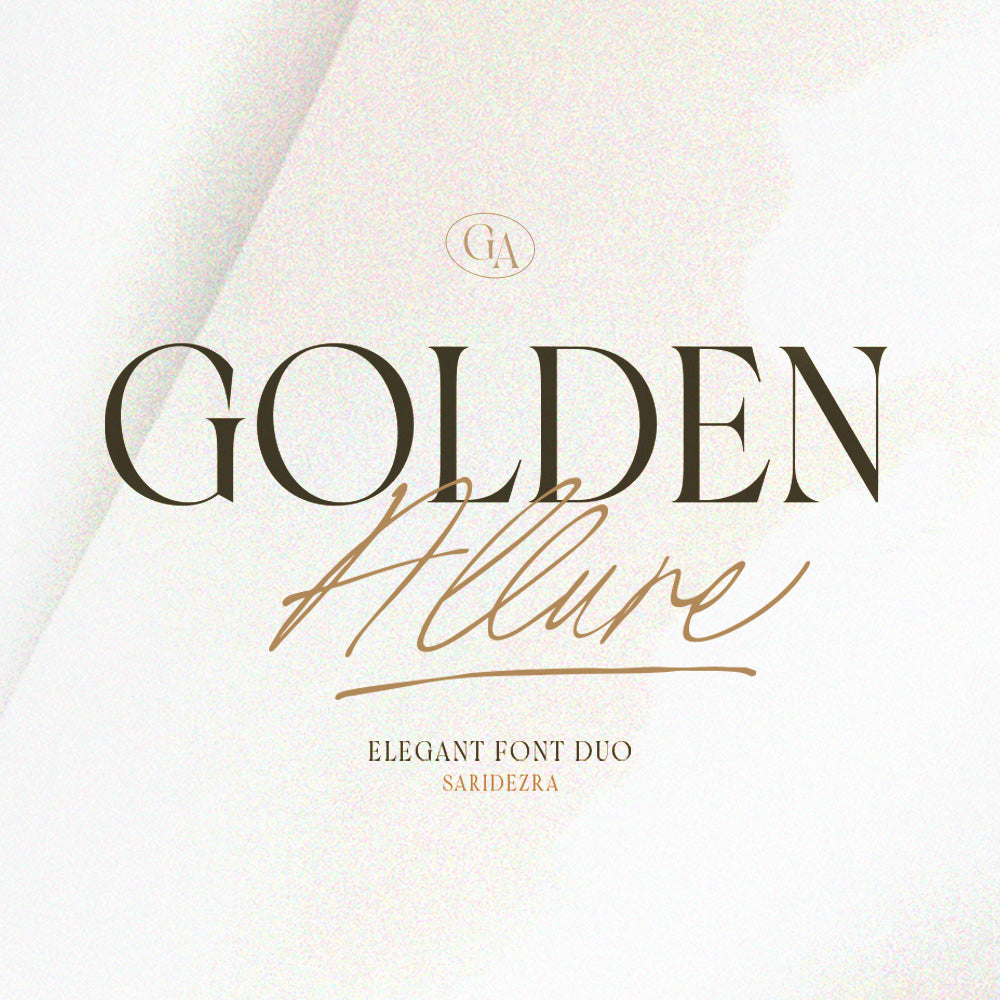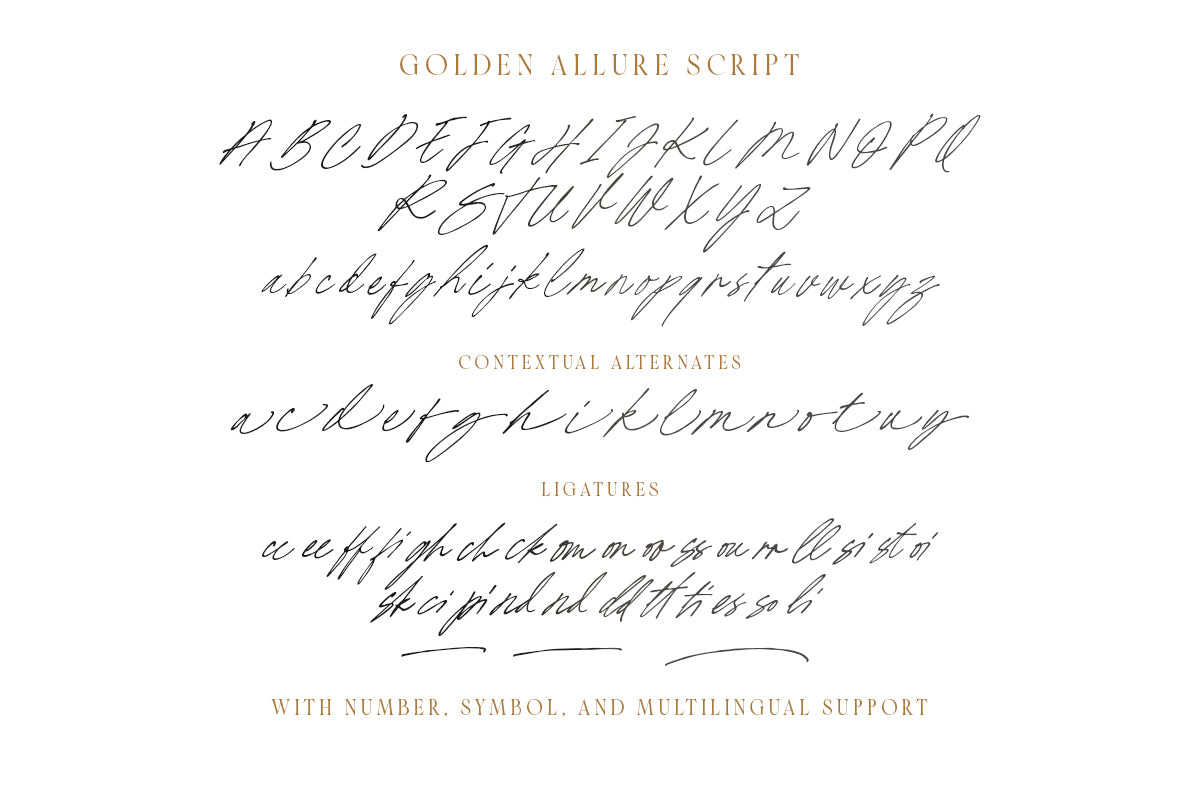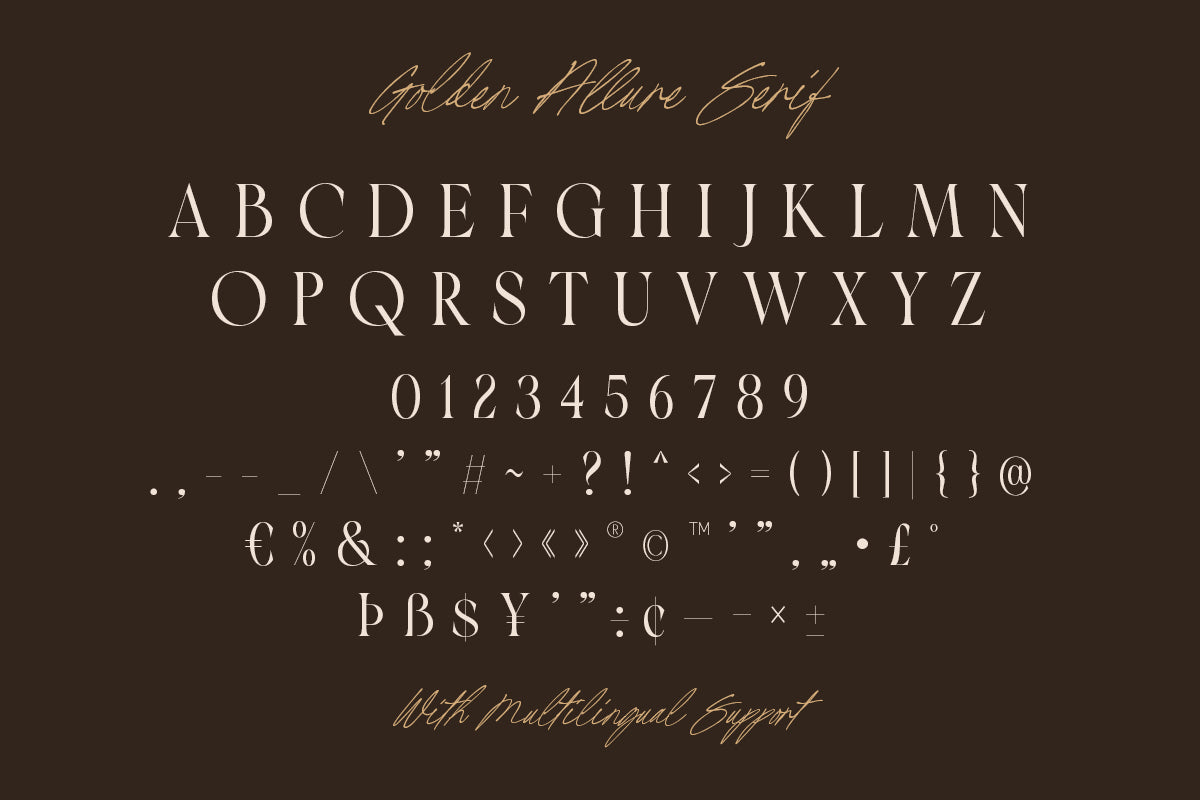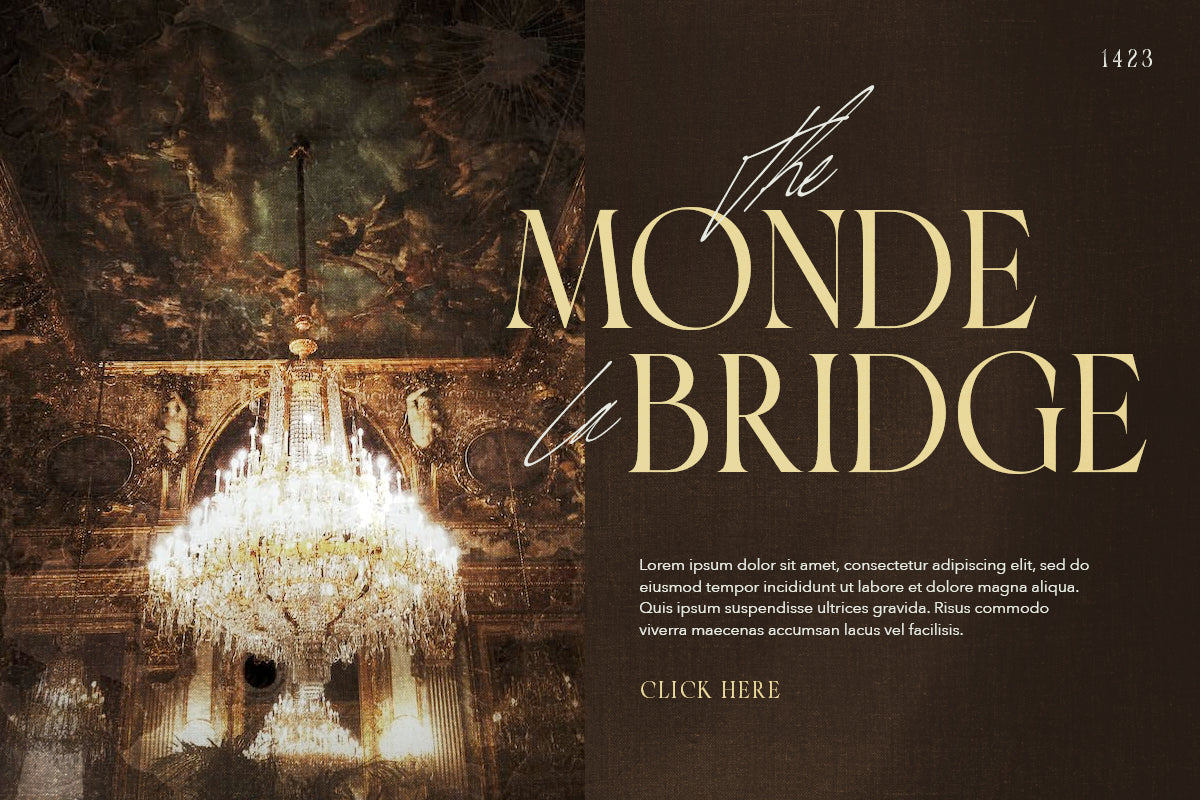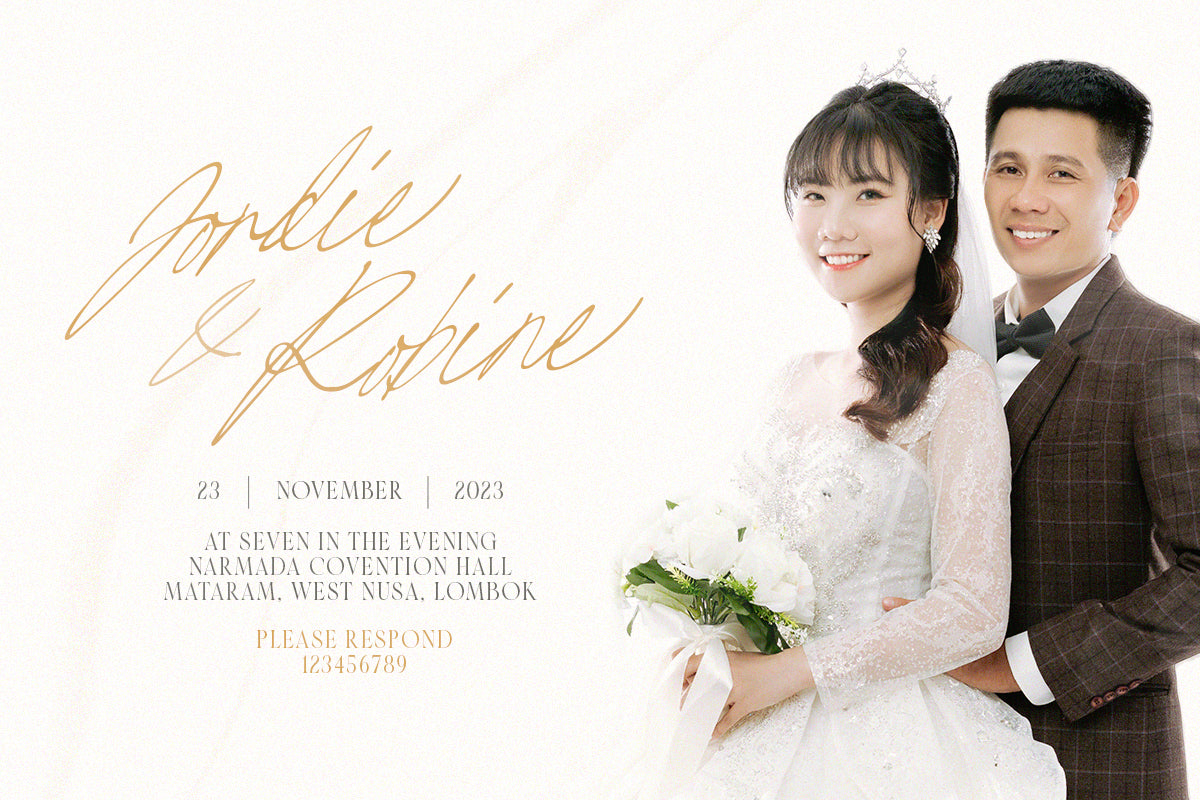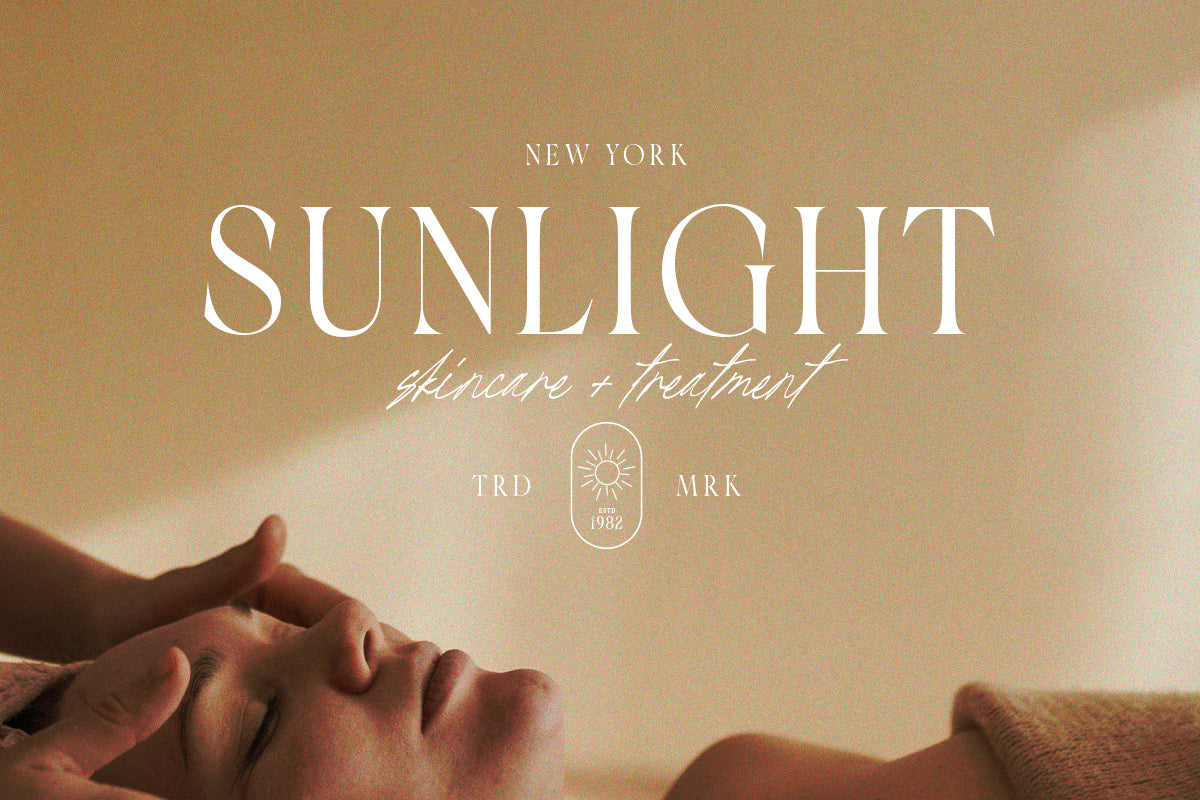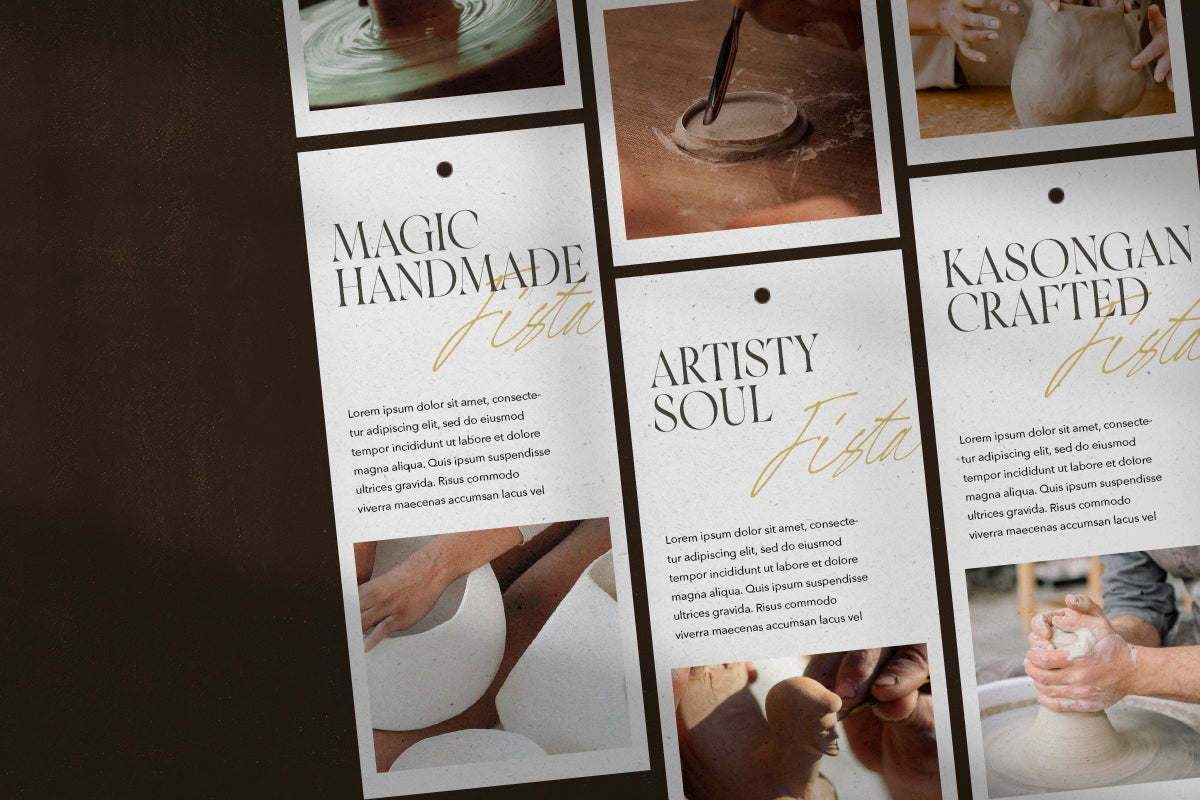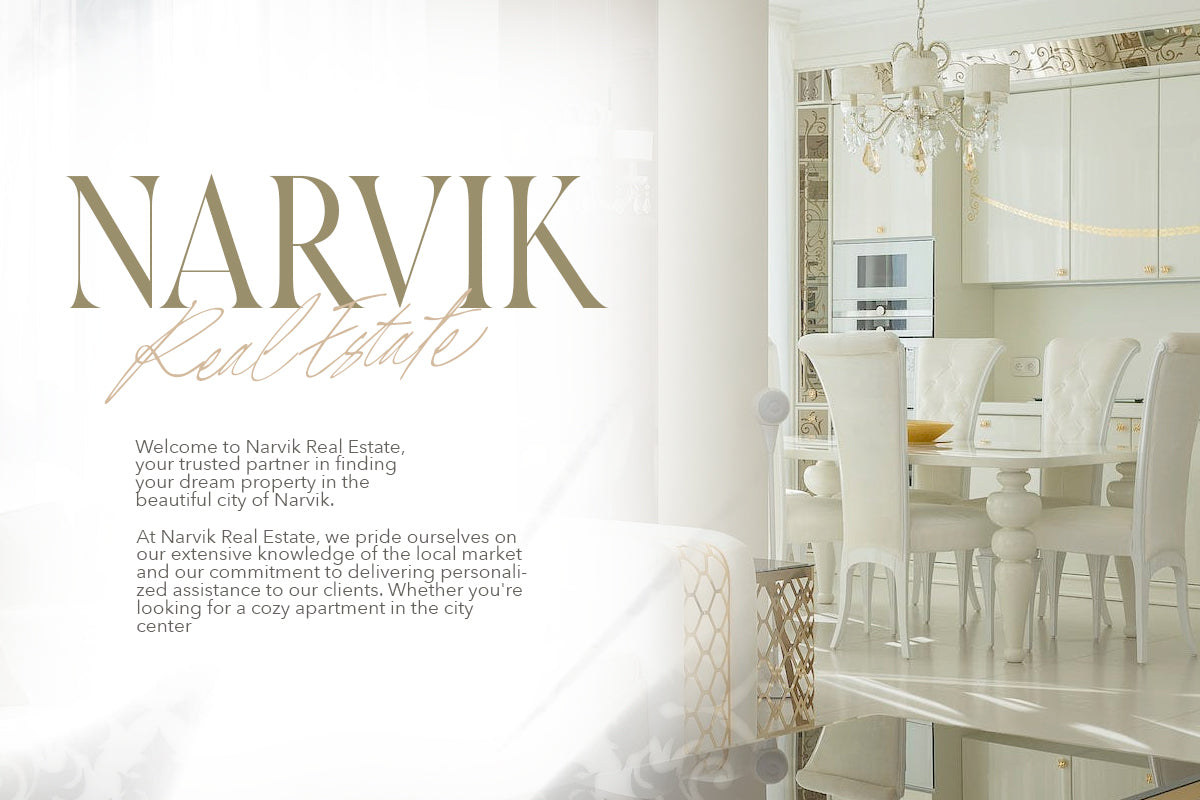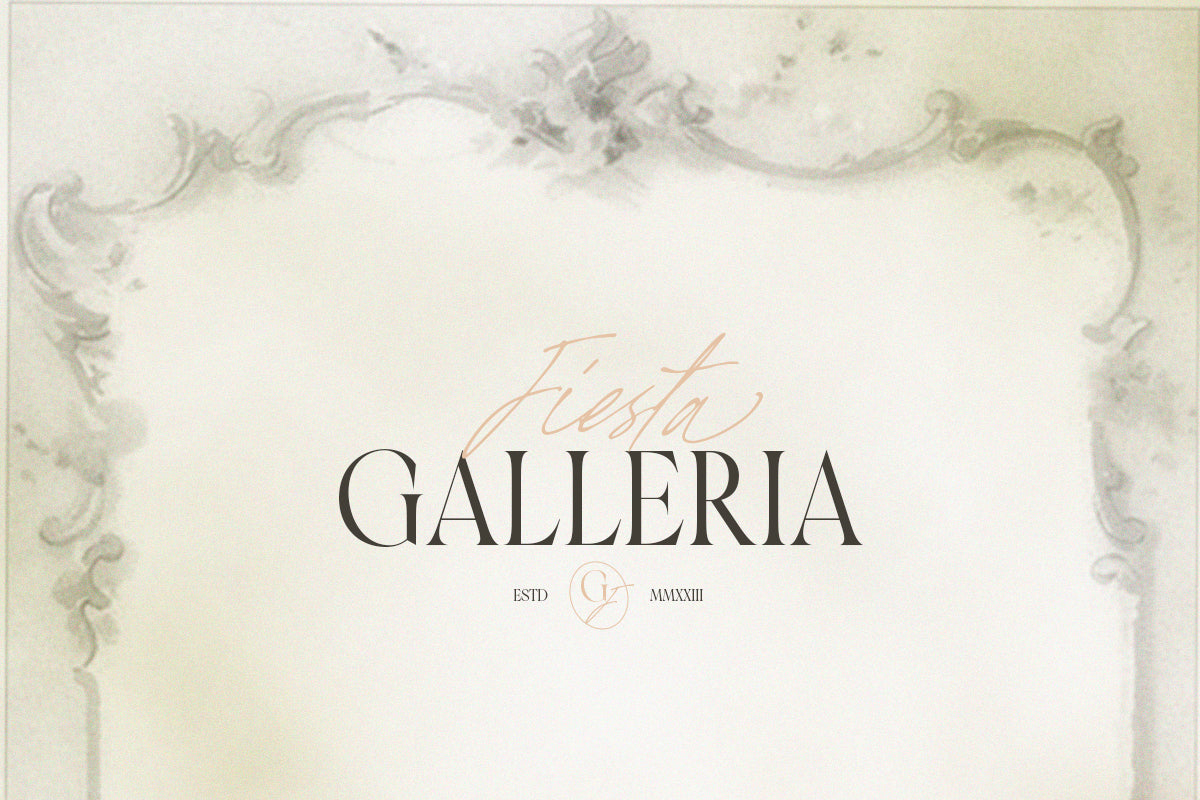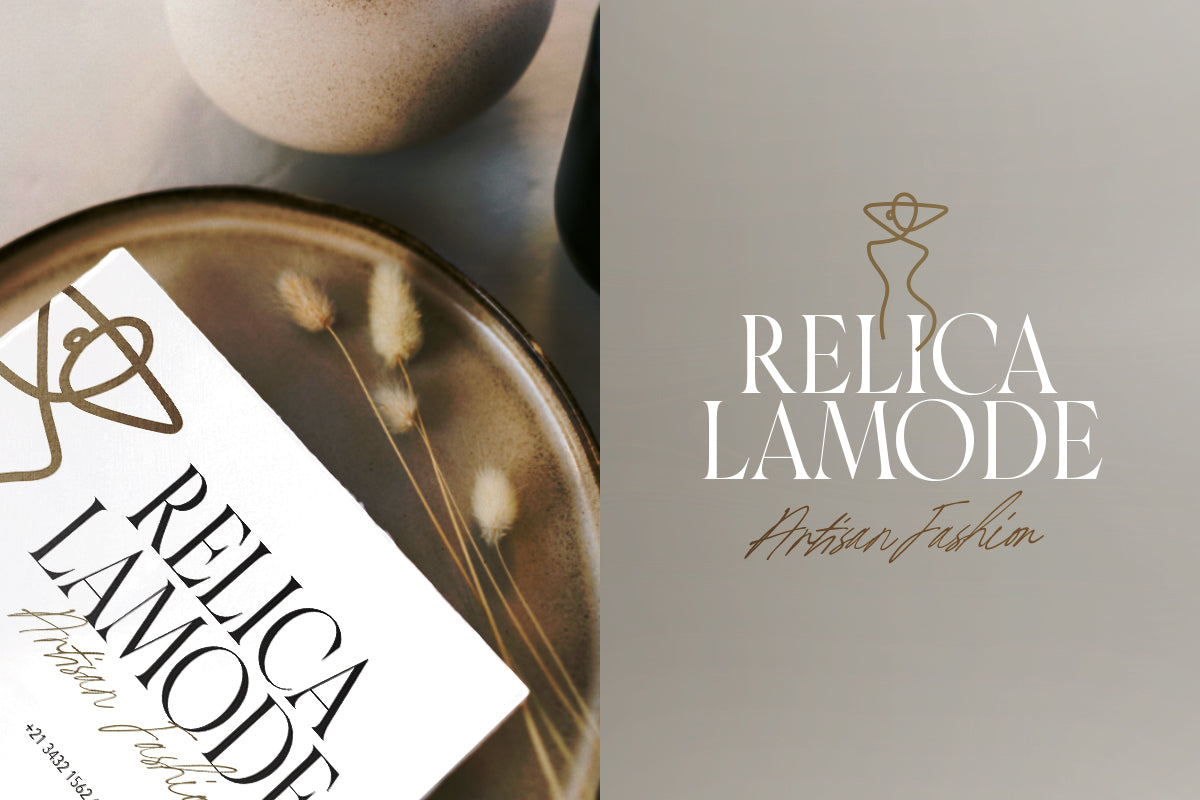
Golden Allure - Elegant Font Duo
Golden Allure is an elegant font duo that combines a modern serif with a handwritten script, featuring two distinct fonts: a classy serif and a signature handmade script. This font duo supports multilingual characters, numbers, symbols, end swashes, and various ligatures.